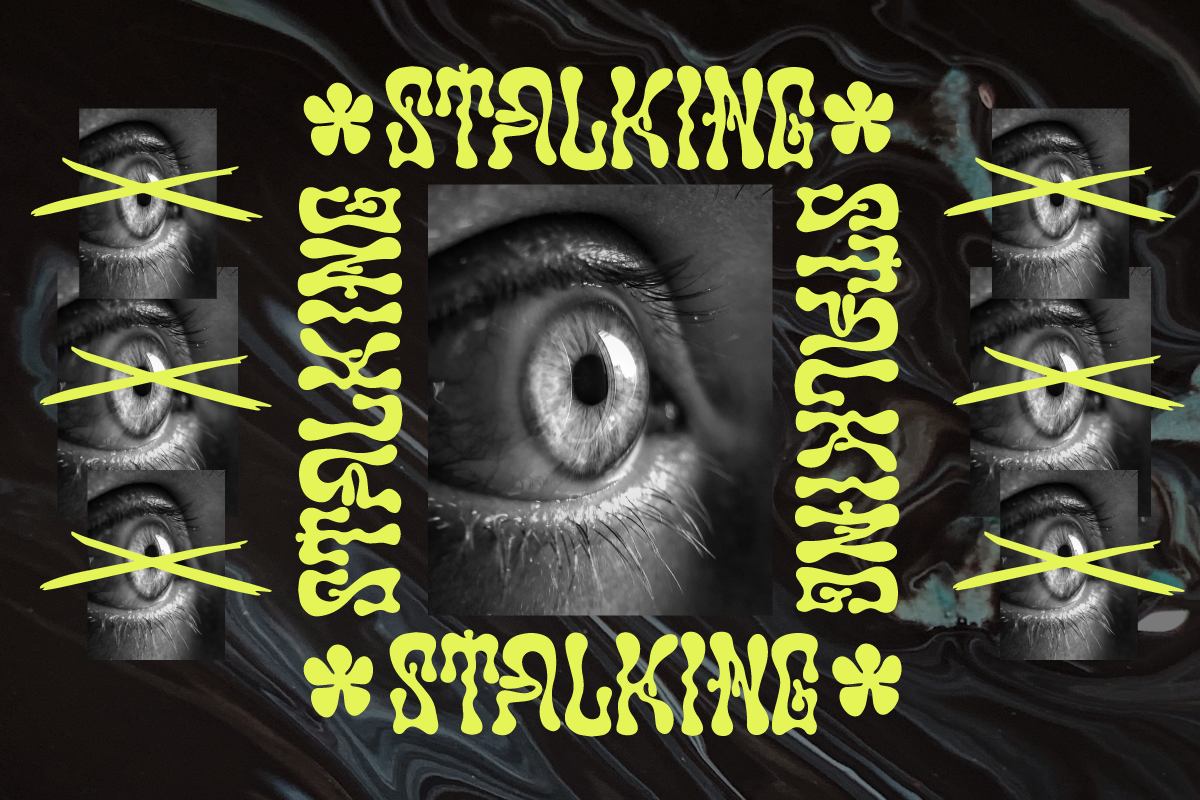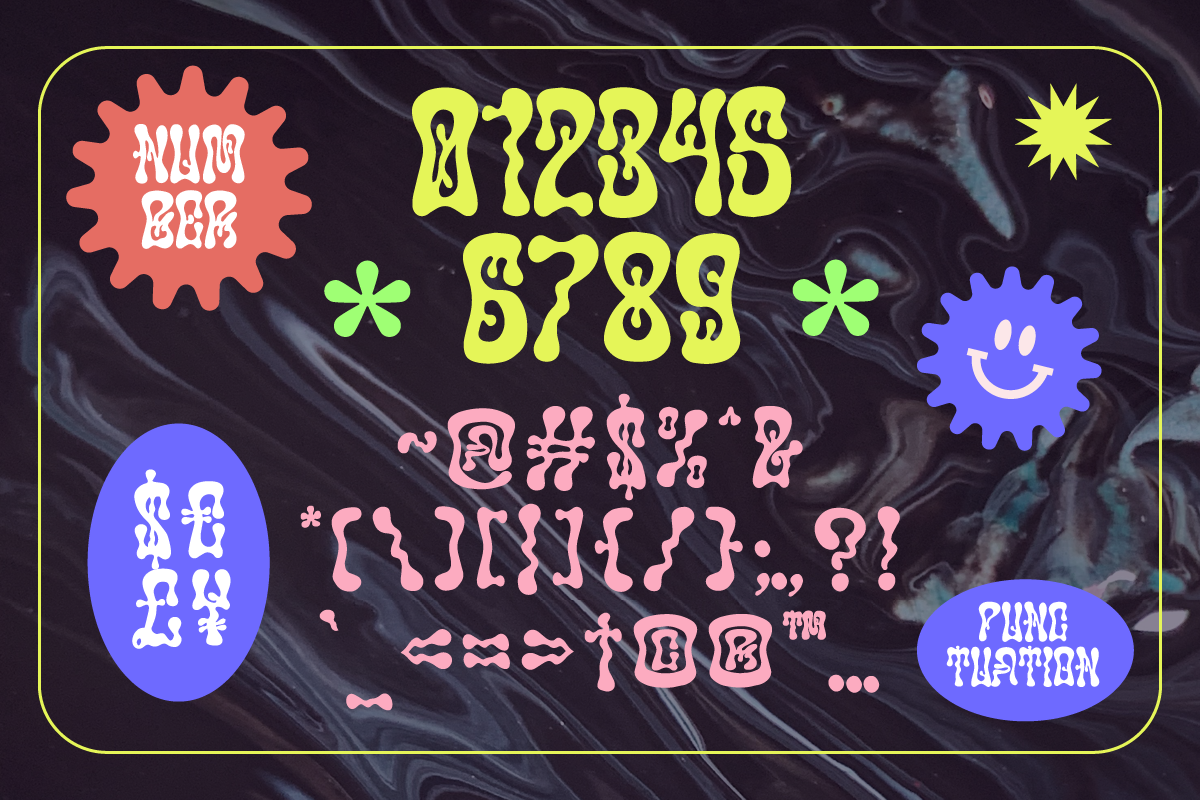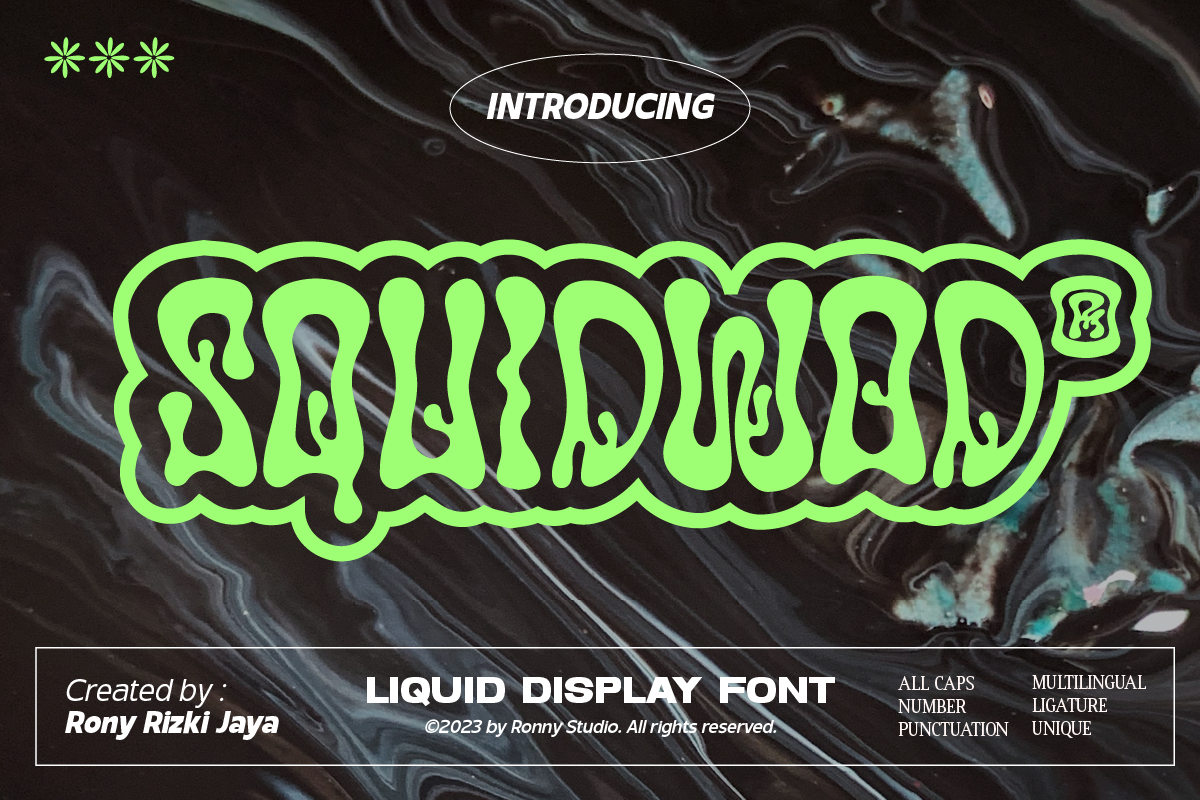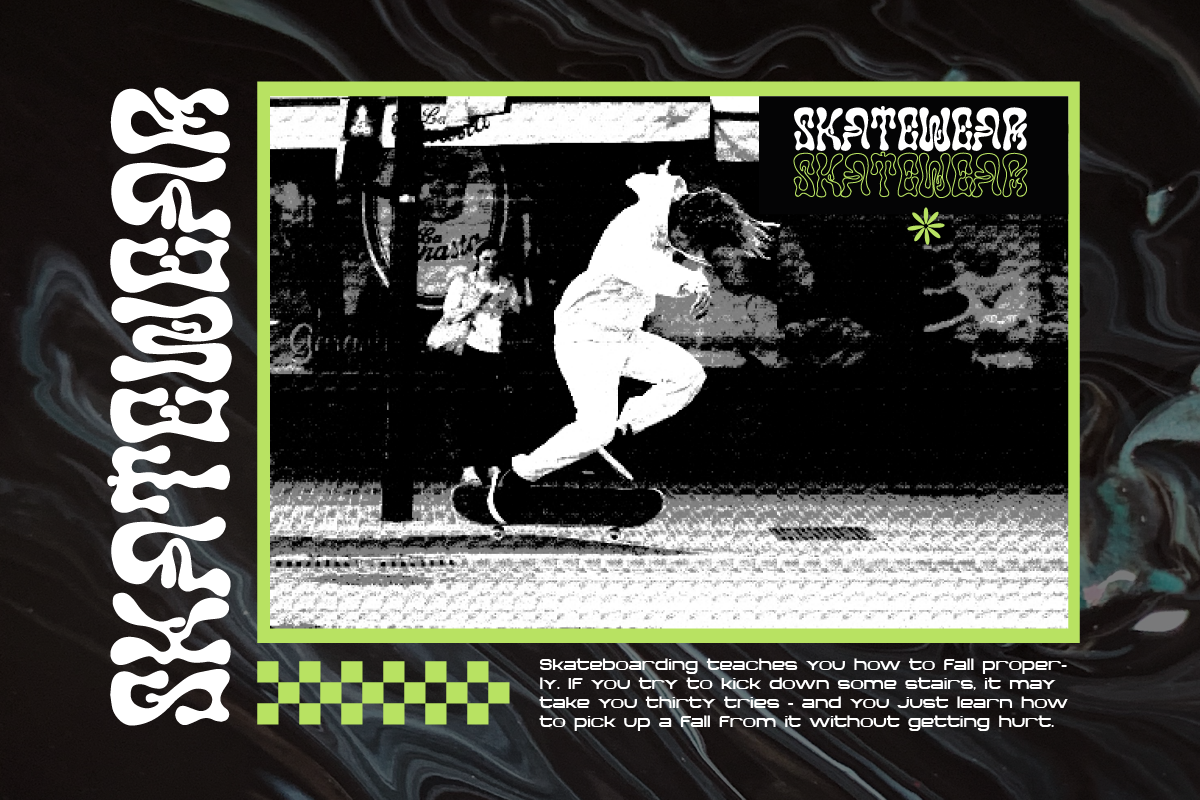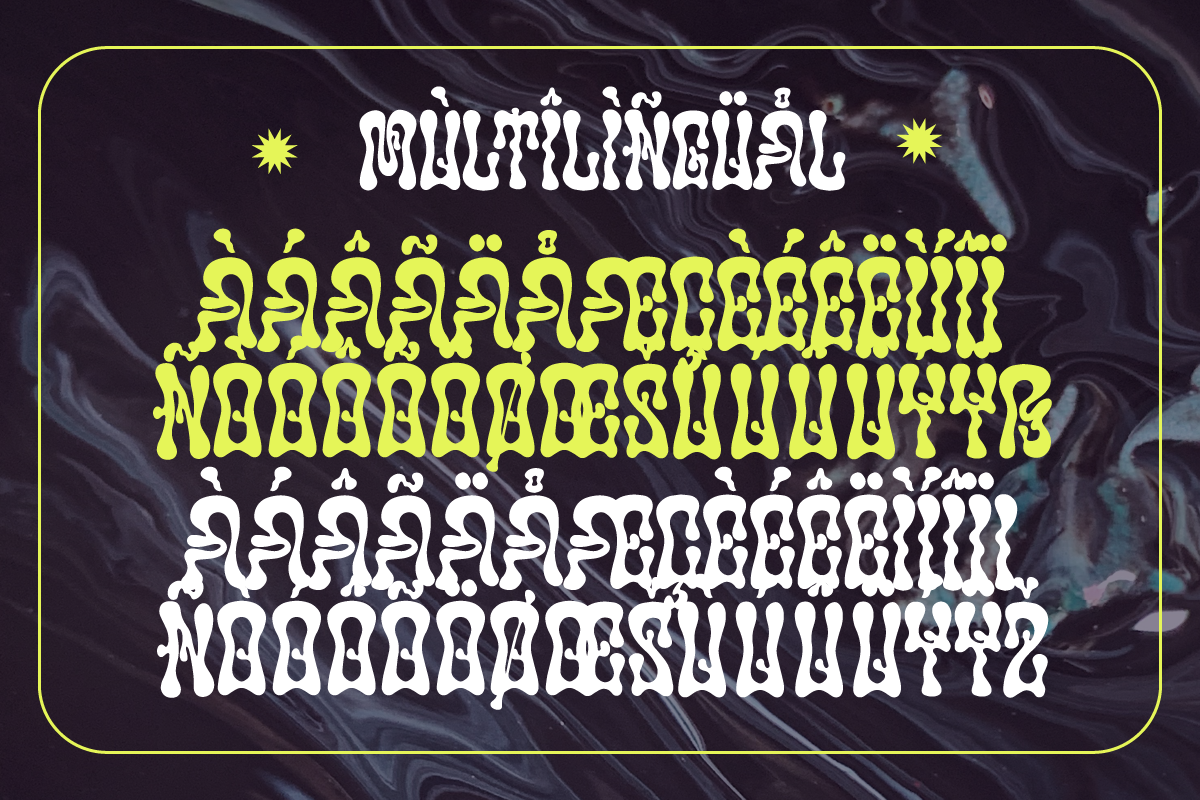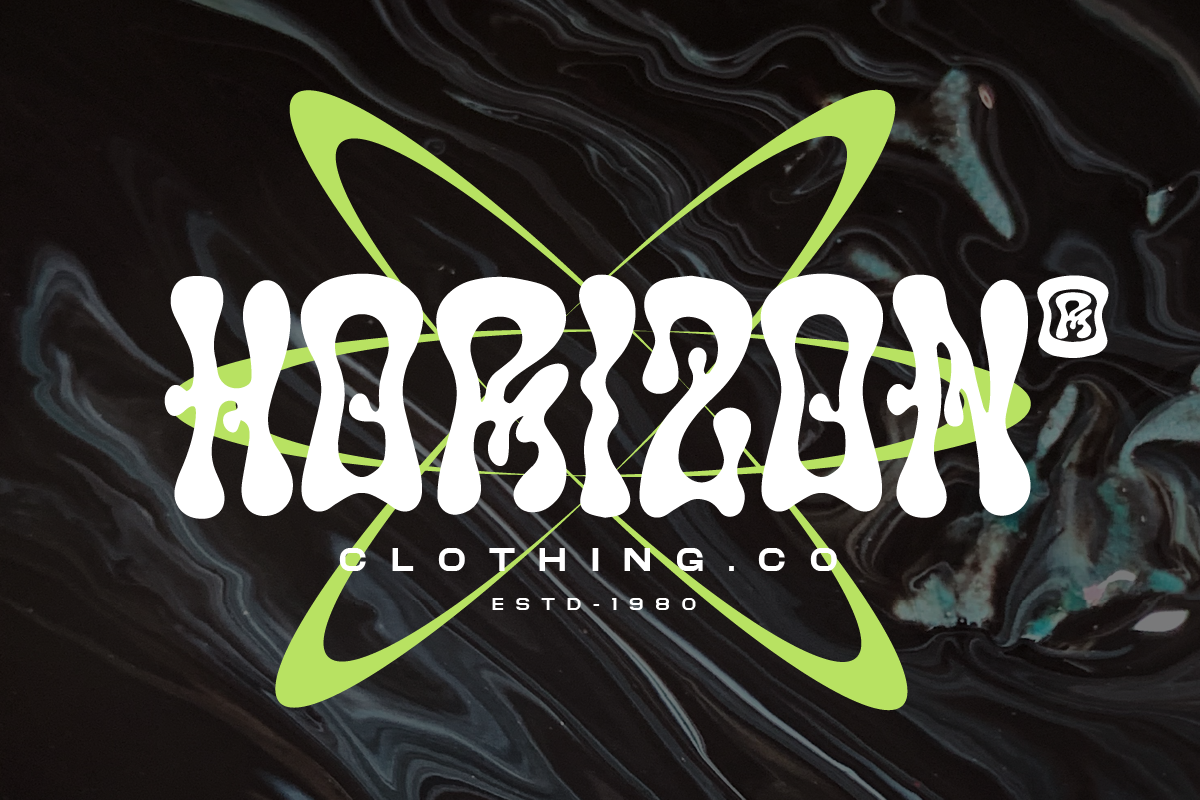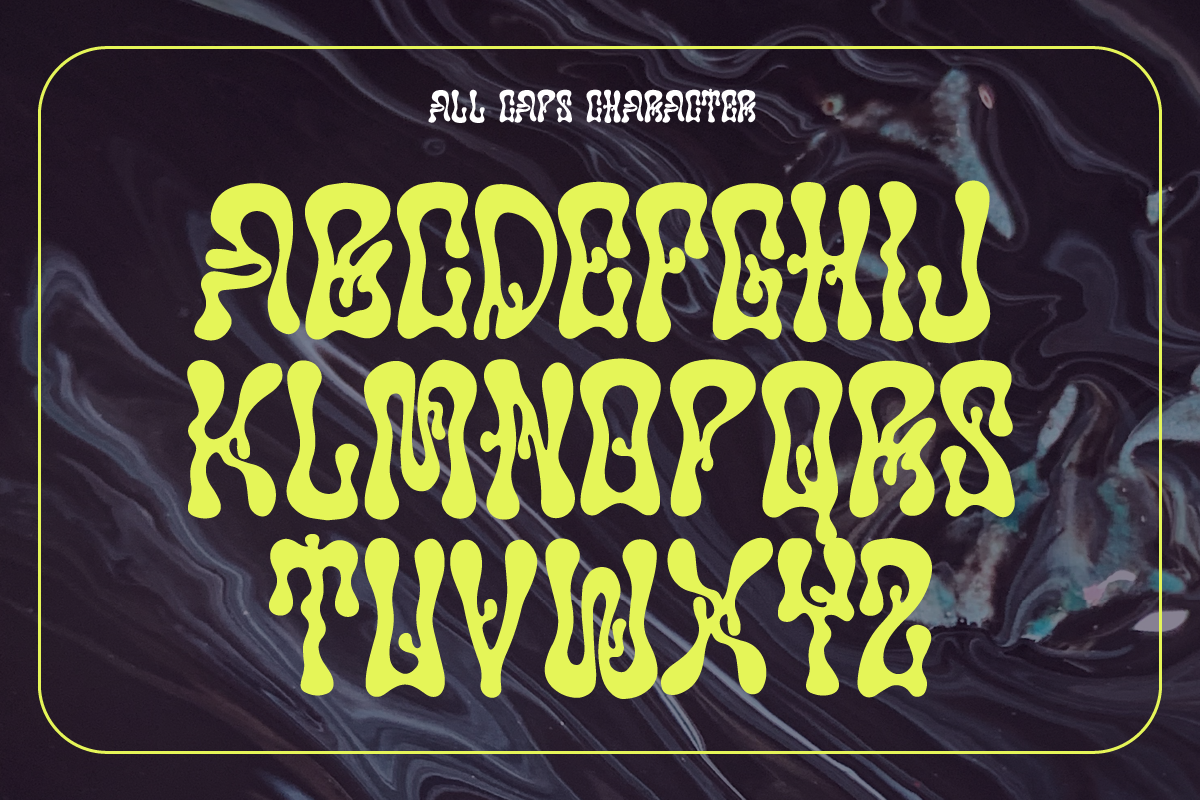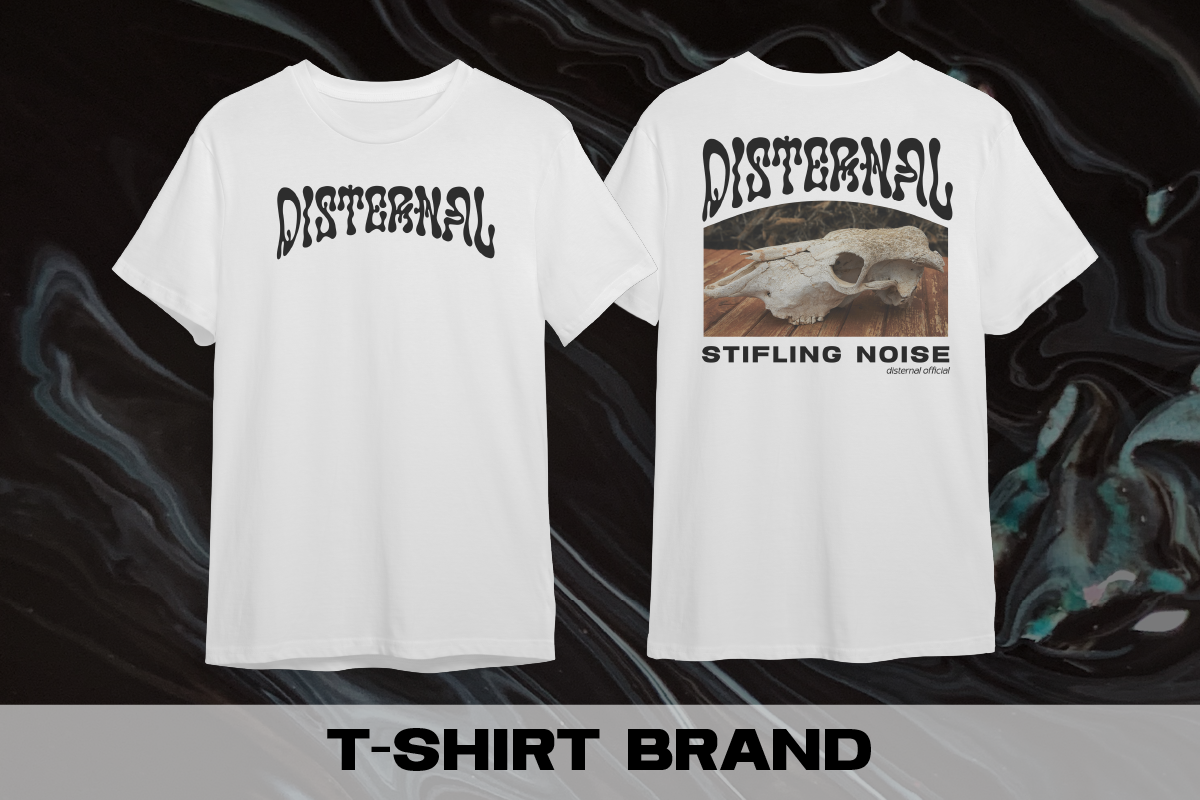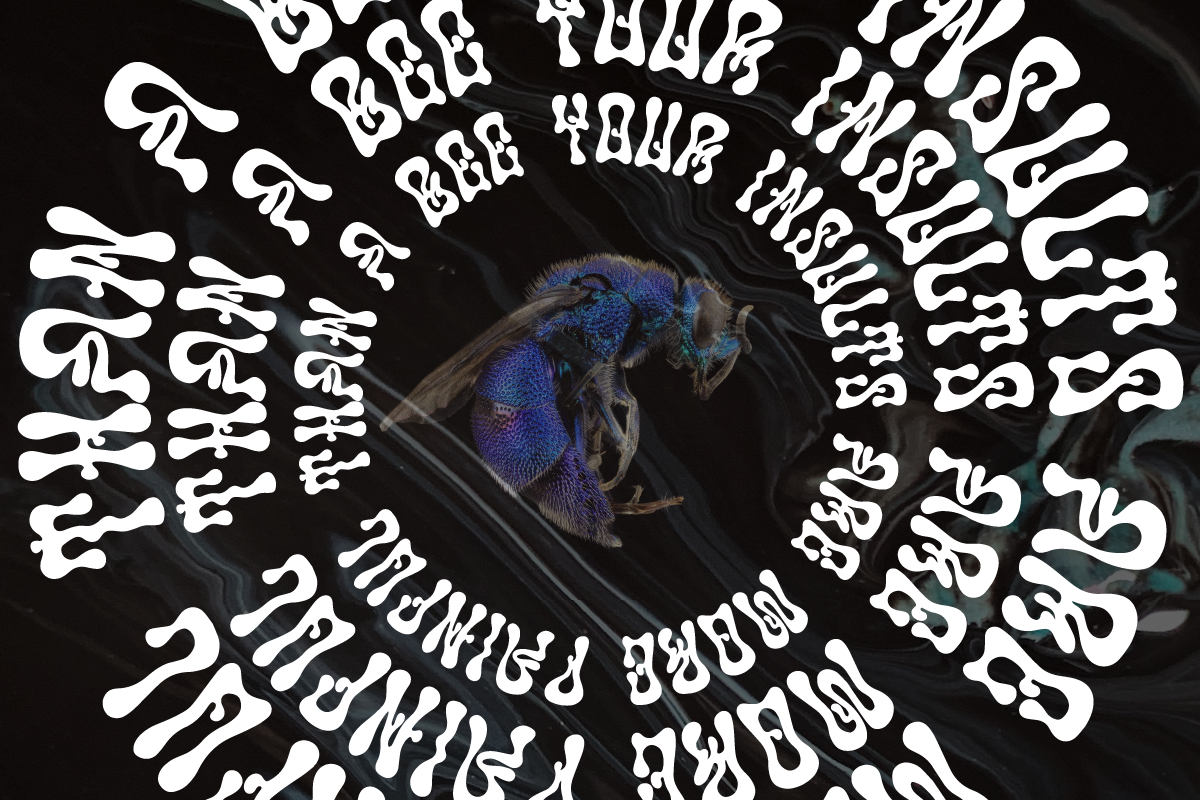
Squidwod Liquid Display Font
Squidwod it's retro, bold, and playful, really ties together your piece to give it that retro feel. This is font perfect for designers who are looking to add a psychedelic acid graphics contemporary hand-done touch to their projects. be it posters, magazines, Instagram, online, or branding. whatever you want to spice up with a little liquid text squidwod is the tool.